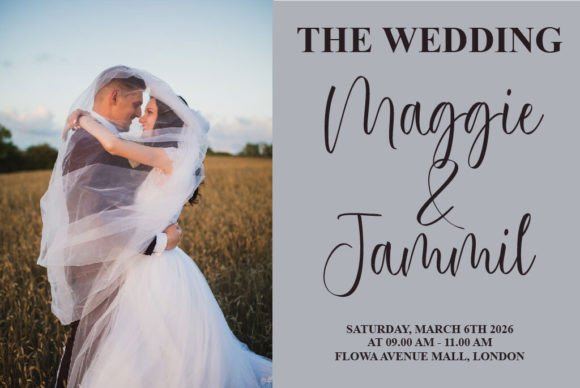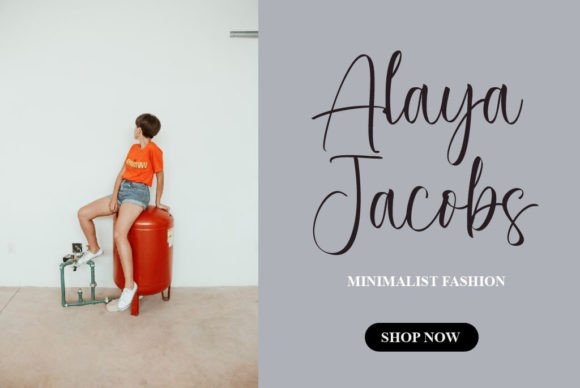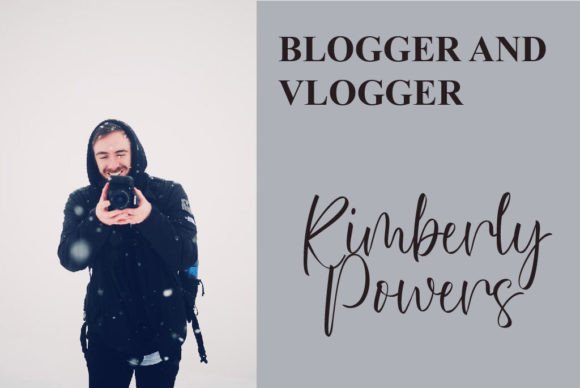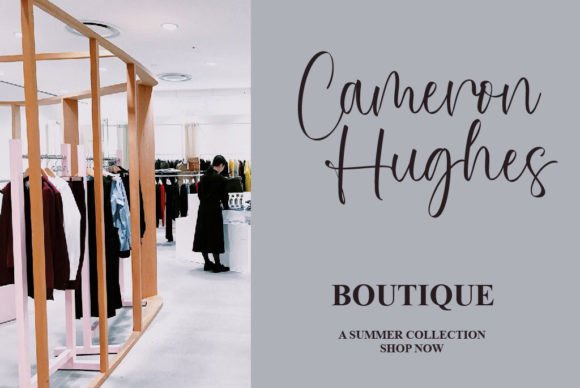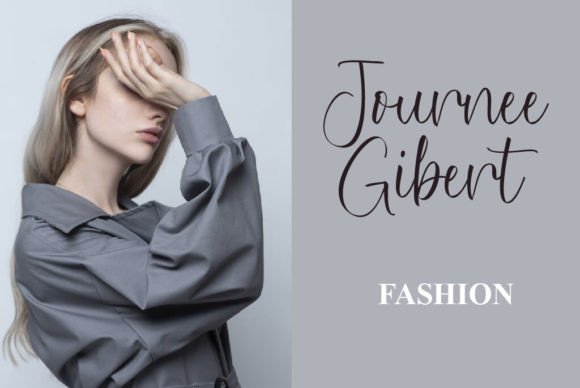
Introduction to Britany Morgan Font
Britany Morgan is a dazzling script font exuding elegance and sophistication.
Its graceful strokes and intricate details captivate the eye, making it perfect for wedding invitations, branding, and elegant designs With its timeless appeal and delicate curves, Britany Morgan adds a touch of luxury to any project.
Key Features of Britany Morgan Font
Why Choose Britany Morgan Font?
Britany Morgan Font offers exceptional quality and versatility, making it a valuable addition to your design toolkit. Whether you’re creating for personal projects or commercial use, Britany Morgan Font delivers professional results.